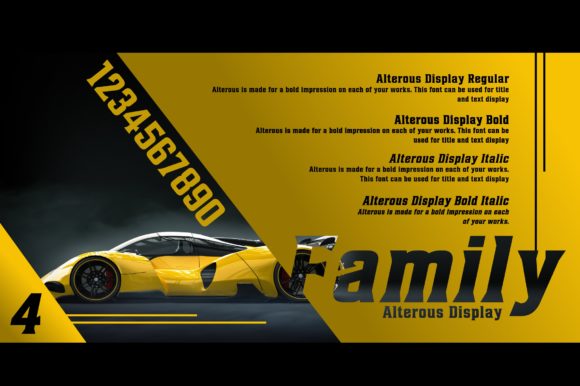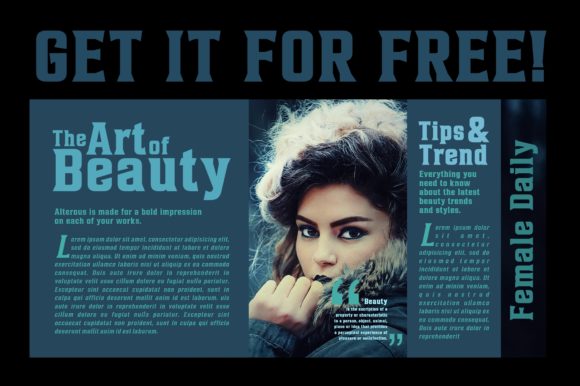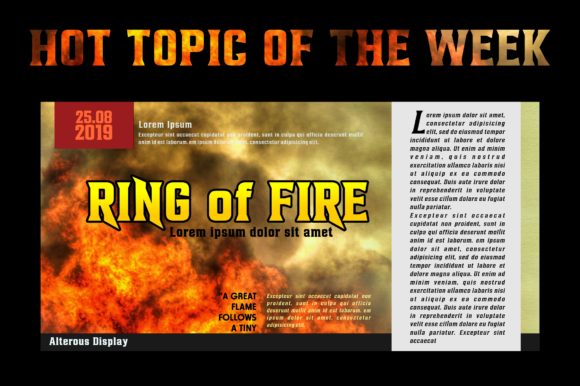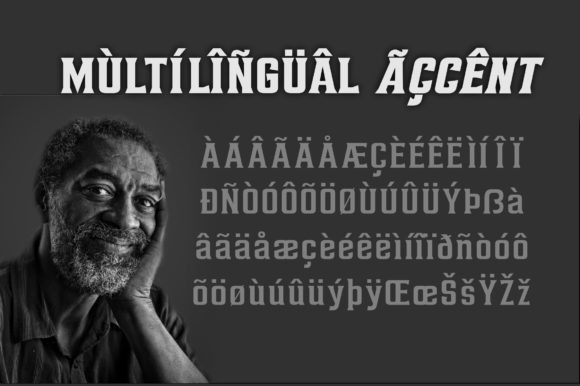
Introducing Alterous Font: Elevate Your Designs with a Bold and Vintage Flair
Are you on the hunt for a font that can add a touch of sophistication and elegance to your designs? Look no further than Alterous, a bold and vintage-styled display font that’s sure to become a true favorite among designers and crafters. With its masterful design and versatility, Alterous has the potential to bring each of your creative ideas to the highest level.
The Characteristics of Alterous Font
Alterous is a display font that boasts a bold and eye-catching design, making it perfect for headlines, titles, and other prominent text elements. Its vintage flair is reminiscent of classic typography, evoking a sense of nostalgia and timelessness. The font’s bold lines and geometric shapes create a striking visual effect that’s sure to grab attention.
What Makes Alterous Font Stand Out
So, what sets Alterous apart from other fonts on the market? Here are just a few characteristics that make it a standout:
- Bold and eye-catching design: Alterous is designed to make a statement, with bold lines and geometric shapes that demand attention.
- Vintage flair: The font’s vintage-inspired design gives it a timeless quality that’s perfect for designs that require a touch of nostalgia.
- Versatility: Alterous can be used for a wide range of design projects, from posters and flyers to logos and branding materials.
- Ease of use: The font is easy to read and works well in a variety of sizes, making it perfect for both print and digital designs.
How to Use Alterous Font in Your Designs
Alterous is a versatile font that can be used in a variety of design projects. Here are just a few ideas to get you started:
- Posters and flyers: Use Alterous to create eye-catching headlines and titles that grab attention.
- Logos and branding materials: The font’s bold and vintage design makes it perfect for logos, business cards, and other branding materials.
- Social media graphics: Alterous can be used to create striking social media graphics, including Facebook posts, Instagram stories, and Twitter headers.
- Packaging design: The font’s bold design makes it perfect for packaging design, including labels, tags, and other packaging materials.
Tips for Getting the Most Out of Alterous Font
Here are a few tips for getting the most out of Alterous:
- Experiment with different sizes: Alterous works well in a variety of sizes, so don’t be afraid to experiment to find the perfect size for your design.
- Pair with other fonts: The font pairs well with other fonts, so try pairing it with a sans-serif font for a bold and modern look.
- Use it sparingly: Alterous is a bold font, so use it sparingly to avoid overwhelming your design.
In conclusion, Alterous is a bold and vintage-styled display font that’s perfect for designers and crafters looking to add a touch of sophistication and elegance to their designs. With its versatility, ease of use, and striking design, Alterous has the potential to bring each of your creative ideas to the highest level. So why wait? Download Alterous today and start elevating your designs to new heights!